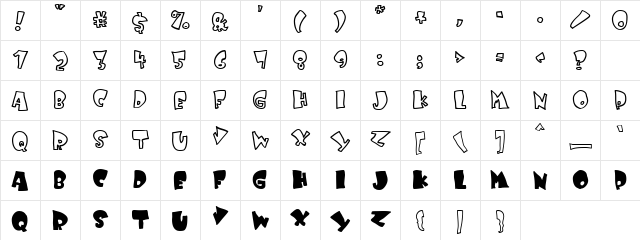
Kruffy Regular Free Font
Kruffy Regular
Design Context for Kruffy
Kruffy is a composed and adaptable typeface that performs quietly and consistently across a wide range of design contexts.
Pro Tip: Use Kruffy in both headline and body roles to test its range before committing to a single application.